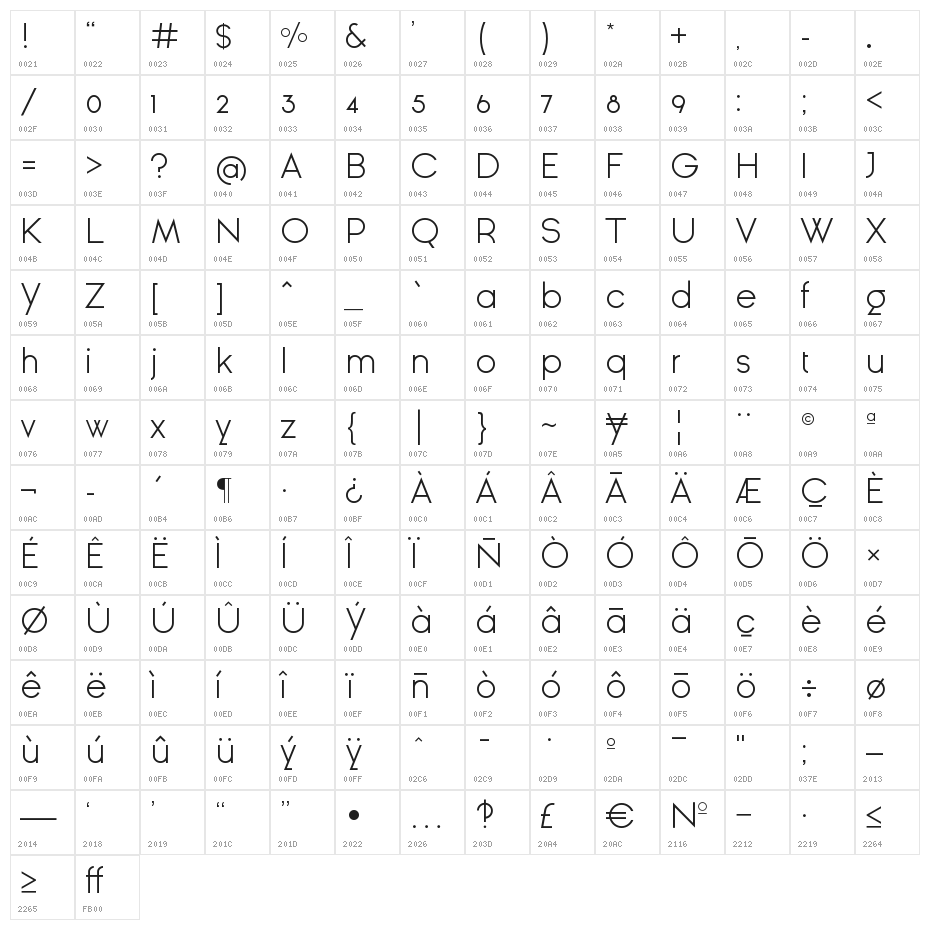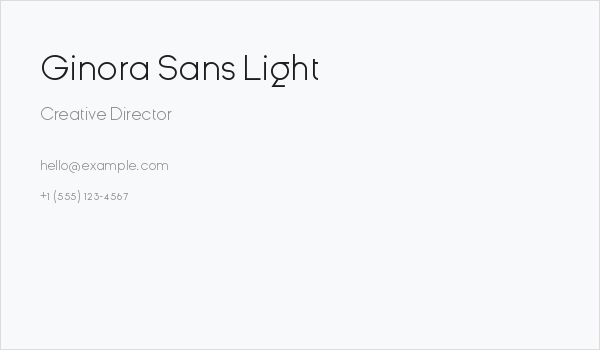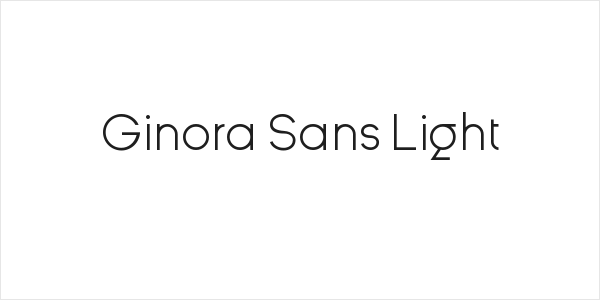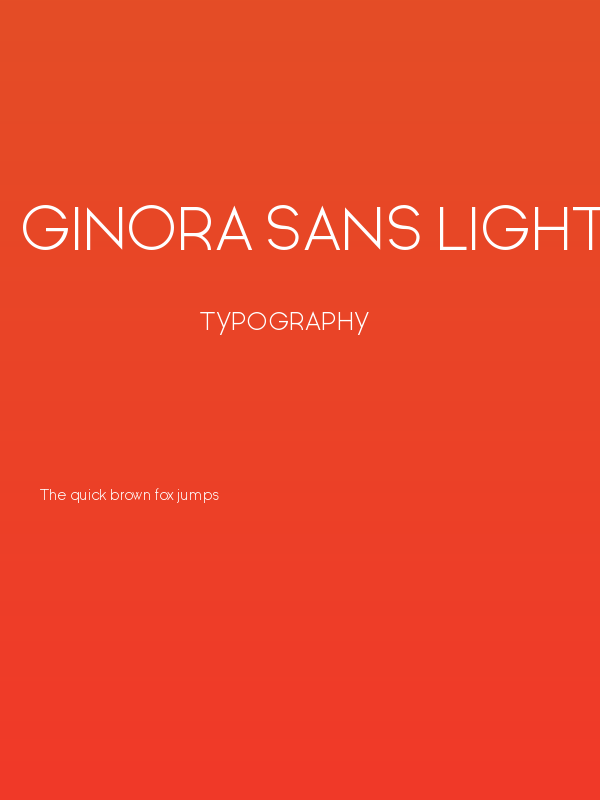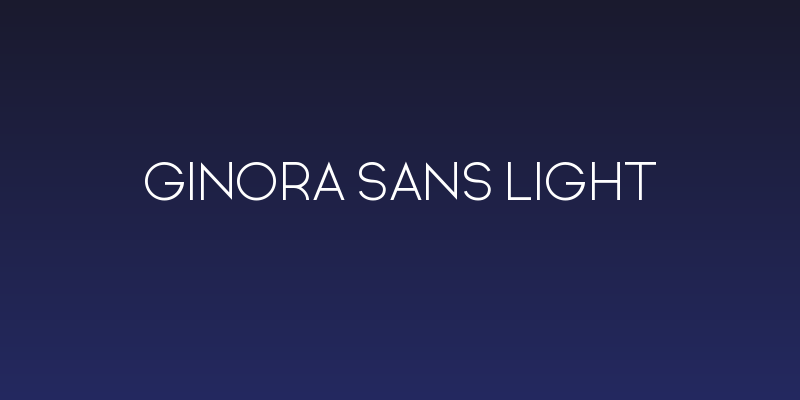
Ginora Sans Light Font
Ginora Sans Light Description
This font exhibits a clean and modern sans-serif style, characterized by its light weight and minimalistic design. The characters are well-proportioned with a consistent stroke width, giving it a sleek and contemporary appearance. The uppercase letters are tall and elegant, while the lowercase letters maintain a harmonious balance with rounded edges. The numerals are clear and legible, matching the overall aesthetic of the font. Special characters are distinct and integrate seamlessly with the alphabet, making this font versatile for various applications.